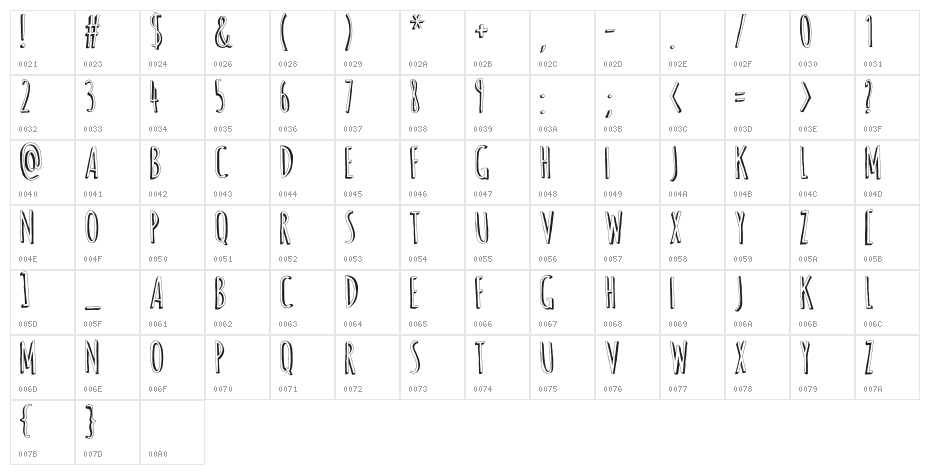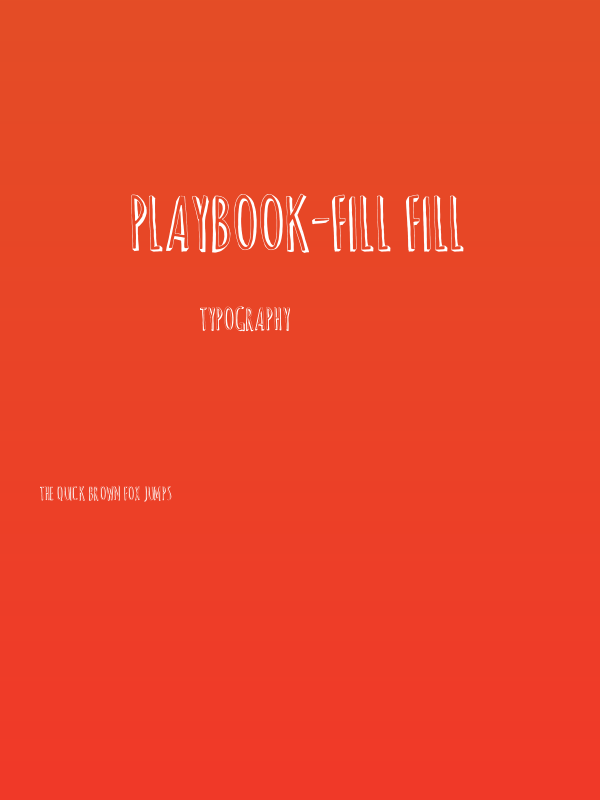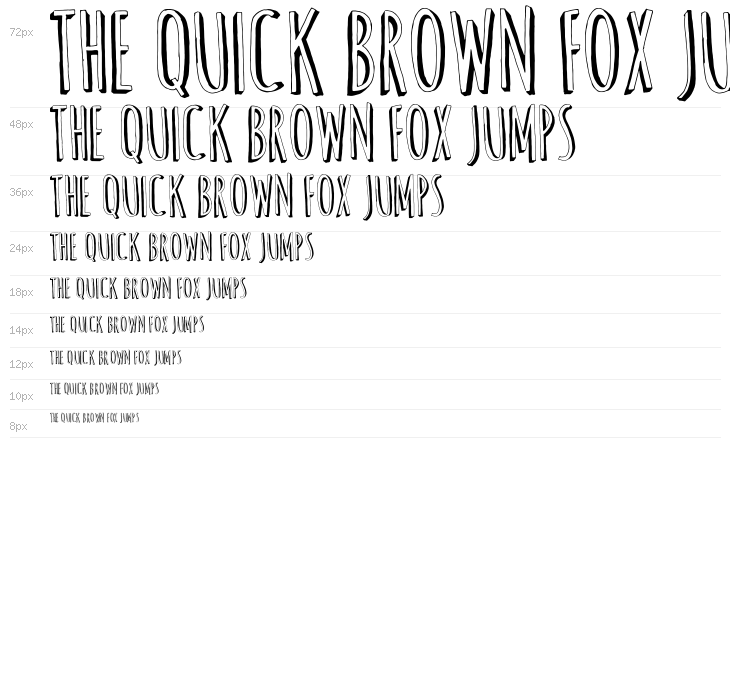
Playbook-Fill Fill Font
Playbook-Fill Fill Description
This font features a playful and artistic style, characterized by its hand-drawn appearance and bold, uneven strokes. The letters are tall and narrow, with a slight slant that adds a dynamic feel. The irregularity in the line thickness gives it a casual, informal look, reminiscent of hand-painted signs or doodles. The characters have a whimsical charm, making them stand out with their unique, imperfect forms. This font is particularly eye-catching due to its high contrast between thick and thin lines, which adds depth and visual interest. The overall design is both creative and approachable, making it suitable for projects that require a touch of personality and flair.
| Proposed Projects | Ideal for creative projects such as posters, invitations, children's books, or branding that seeks a fun and informal vibe. |